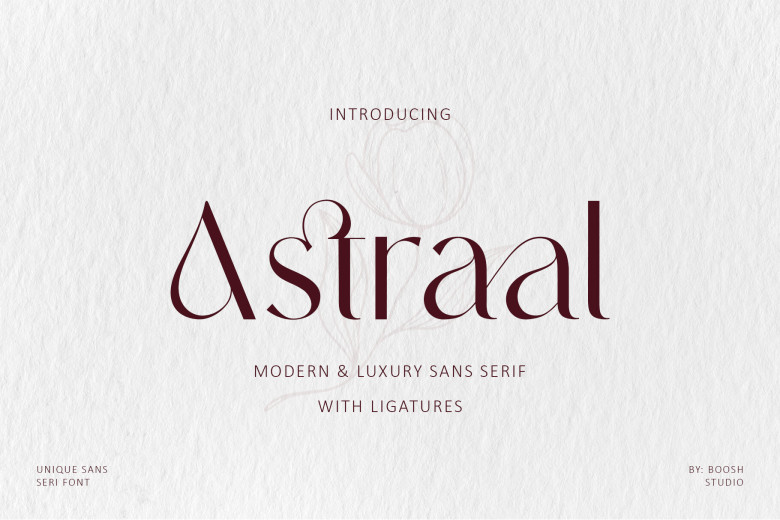
Astraal is quite simply a unique sans serif font of today with ultra smooth lines and an exquisite feel. The font also uses elegant ligatures that is the flowing of two letters seamlessly, thus making the text look more professional. Appropriate to be used in fancy logos, and upper class business logos.
Astraal Sans Serif Font